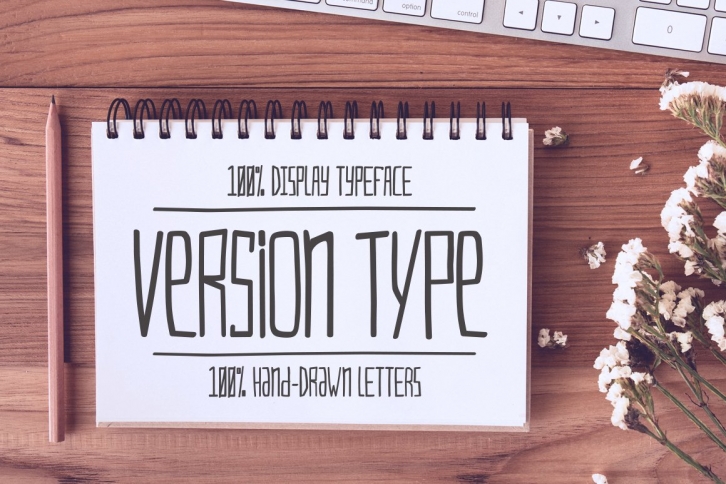
This is VersionType Pro, the new improved and updated "version". It has been expanded, cleaned up and reworked, while keeping the fun and loose style.
VersionType started as a personal project a while back. It's a fun hand-drawn typeface that is meant to be used for headlines or it can be your base to your next logo assignment.
VersionType Pro Regular includes:
• 100% Hand-Drawn Letters and Symbols
• Multi-Languae Support
• Upper and Lower Case Variants
• Over 250 glyphs
• 100% Fun
VersionType Pro Regular supports the following languages: Albanian, Basque, Breton, Chamorro, Danish, Dutch, English, Faroese, Finnish, French, Frisian, Galician, German, Icelandic, Italian, Malagasy, Norwegian, Portuguese, Spanish, Swedish
The original version has been used in video games, logos and packaging.